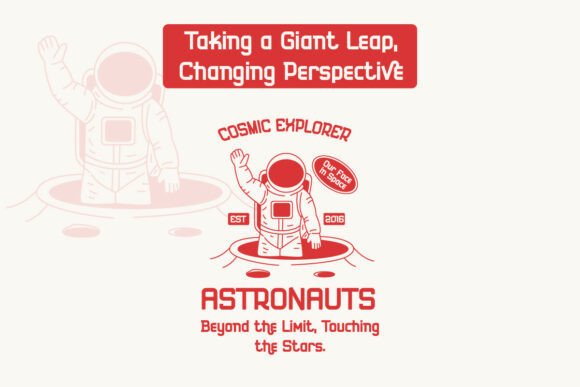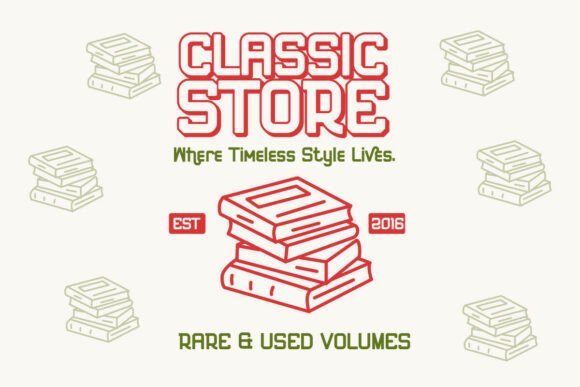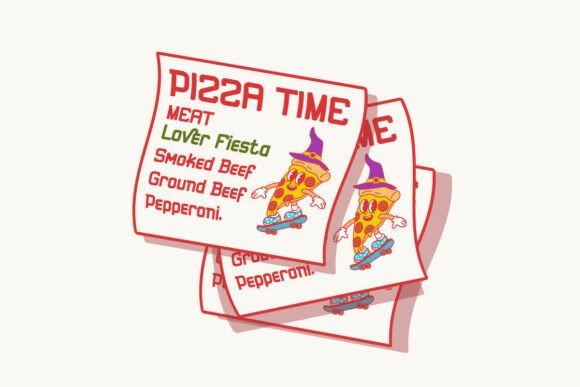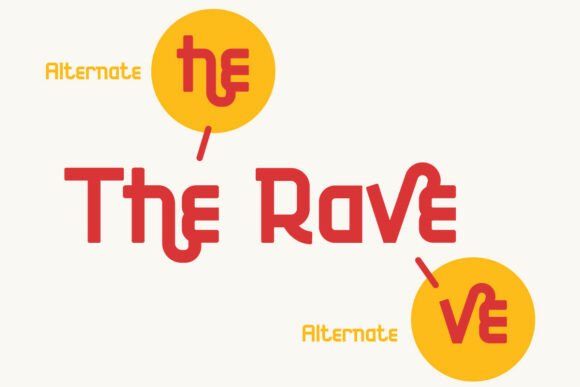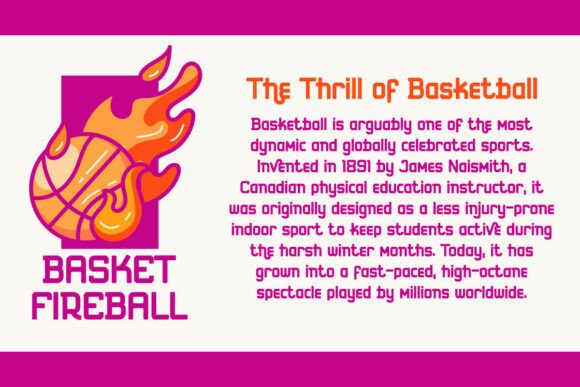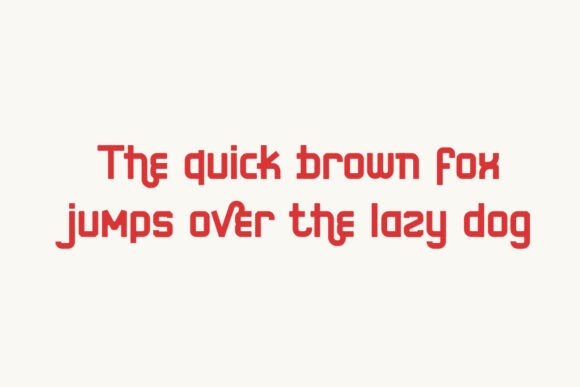
Introduction to Bixvenom Font
Step back in time with the Bixvenom Classic Display Typeface, a font designed to embody a sense of classic elegance and timeless beauty.
This versatile typeface draws its inspiration from vintage aesthetics, creating a unique fusion of design elements that is both nostalgically charming and refreshingly modern Composed with precision, Bixvenom sings in an array of applications, from logos to headlines, and everything in between.
Key Features of Bixvenom Font
Why Choose Bixvenom Font?
Bixvenom Font offers exceptional quality and versatility, making it a valuable addition to your design toolkit. Whether you’re creating for personal projects or commercial use, Bixvenom Font delivers professional results.